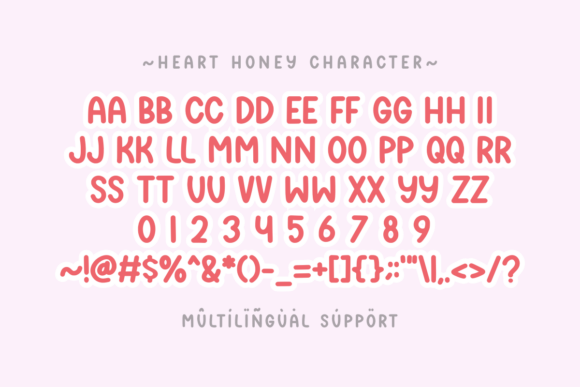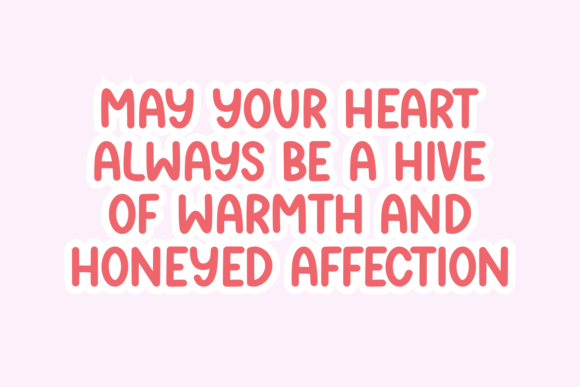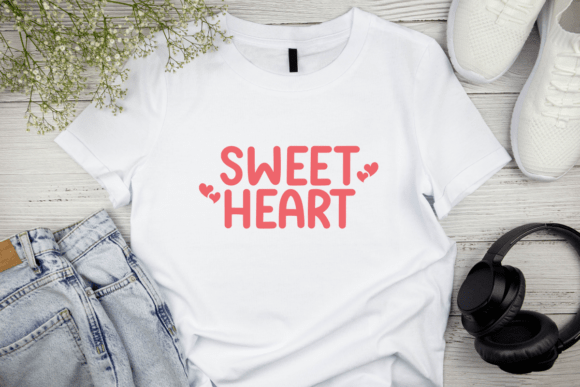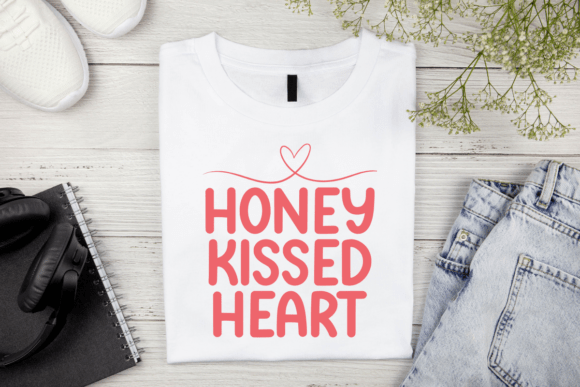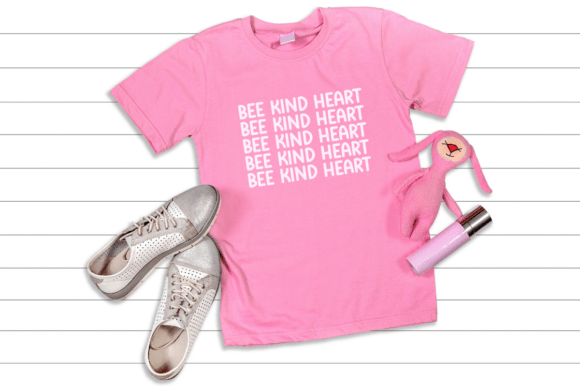
Introducing Heart Honey Font: The Sweetest Addition to Your Design Toolbox
Are you tired of using the same old fonts in your designs? Look no further than Heart Honey, a delightful and playful sans serif font that’s sure to bring a touch of warmth and sweetness to any project. With its charming rounded edges and friendly demeanor, Heart Honey is perfect for designers and crafters who want to create a cute, innocent, and joyful aesthetic.
The Perfect Font for Playful Designs
Heart Honey is a versatile typeface that’s ideal for a wide range of projects, from children’s books and greeting cards to branding for sweet treats and social media graphics. Its approachable style and legibility make it suitable for both headlines and shorter bodies of text, ensuring your message is conveyed with a loving embrace.
Whether you’re designing for a client or working on a personal project, Heart Honey offers a unique blend of casual elegance and fun. This font is sure to infuse your creations with a sense of heartfelt happiness and whimsical appeal, making it a go-to choice for designers looking to add a touch of personality to their work.
What Makes Heart Honey So Special?
So, what sets Heart Honey apart from other fonts? Here are just a few of its standout features:
- Rounded edges: Heart Honey’s charming rounded edges give it a soft and approachable feel, making it perfect for designs that need a touch of warmth and personality.
- Playful demeanor: This font has a friendly and playful vibe that’s sure to bring a smile to your face. It’s the perfect choice for designs that need to be fun and engaging.
- Legibility: Heart Honey is highly legible, making it suitable for both headlines and shorter bodies of text. This ensures that your message is conveyed clearly and effectively.
- Versatility: This font is incredibly versatile, making it perfect for a wide range of projects and applications.
Using Heart Honey in Your Designs
Heart Honey is an incredibly versatile font that can be used in a wide range of design applications. Here are just a few ideas to get you started:
- Children’s books: Heart Honey is perfect for children’s books, with its playful and approachable style making it easy for young readers to follow along.
- Greeting cards: Add a touch of warmth and personality to your greeting cards with Heart Honey, making them perfect for special occasions like birthdays and holidays.
- Branding for sweet treats: If you’re designing branding for sweet treats like bakeries or candy stores, Heart Honey is the perfect choice. Its playful and whimsical style is sure to appeal to customers of all ages.
- Social media graphics: Heart Honey is perfect for social media graphics, with its friendly and approachable style making it easy to connect with your audience.
Tips for Getting the Most Out of Heart Honey
Here are a few tips for getting the most out of Heart Honey in your designs:
- Experiment with different sizes: Heart Honey looks great in a wide range of sizes, from large headlines to smaller body text. Experiment with different sizes to find the perfect fit for your design.
- Pair it with other fonts: Heart Honey pairs well with a wide range of other fonts, from bold and modern to elegant and script-like. Experiment with different pairings to find the perfect combination for your design.
- Use it to add personality: Heart Honey is all about adding personality to your designs. Don’t be afraid to use it to add a touch of whimsy and fun to your work.
In conclusion, Heart Honey is a delightful and playful sans serif font that’s sure to bring a touch of warmth and sweetness to any design. With its charming rounded edges and friendly demeanor, it’s perfect for designers and crafters who want to create a cute, innocent, and joyful aesthetic. Whether you’re designing for a client or working on a personal project, Heart Honey is a versatile typeface that’s sure to infuse your creations with a sense of heartfelt happiness and whimsical appeal.
So why not give Heart Honey a try? With its unique blend of casual elegance and fun, it’s the perfect addition to any design toolbox.